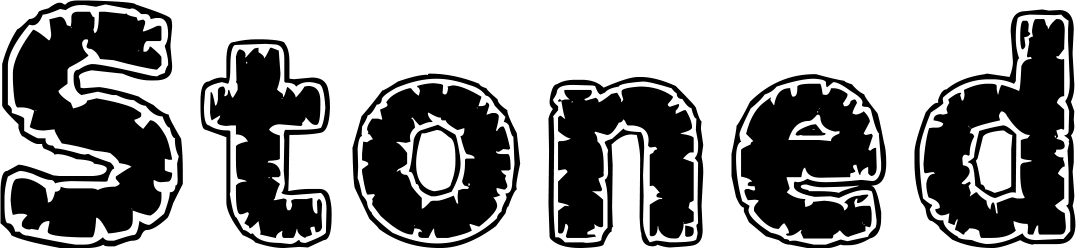
Stoned Font
Designed byAnthony Robinson
A font can be used in different situations like products, digital screens, printing, and so on. But what comes first is to choose the proper one. Here is a desert font named Stoned that you can use for your projects. The letters are almost bold and strong and fit titles or headlines. Give it a shot and see how awesome it sounds.